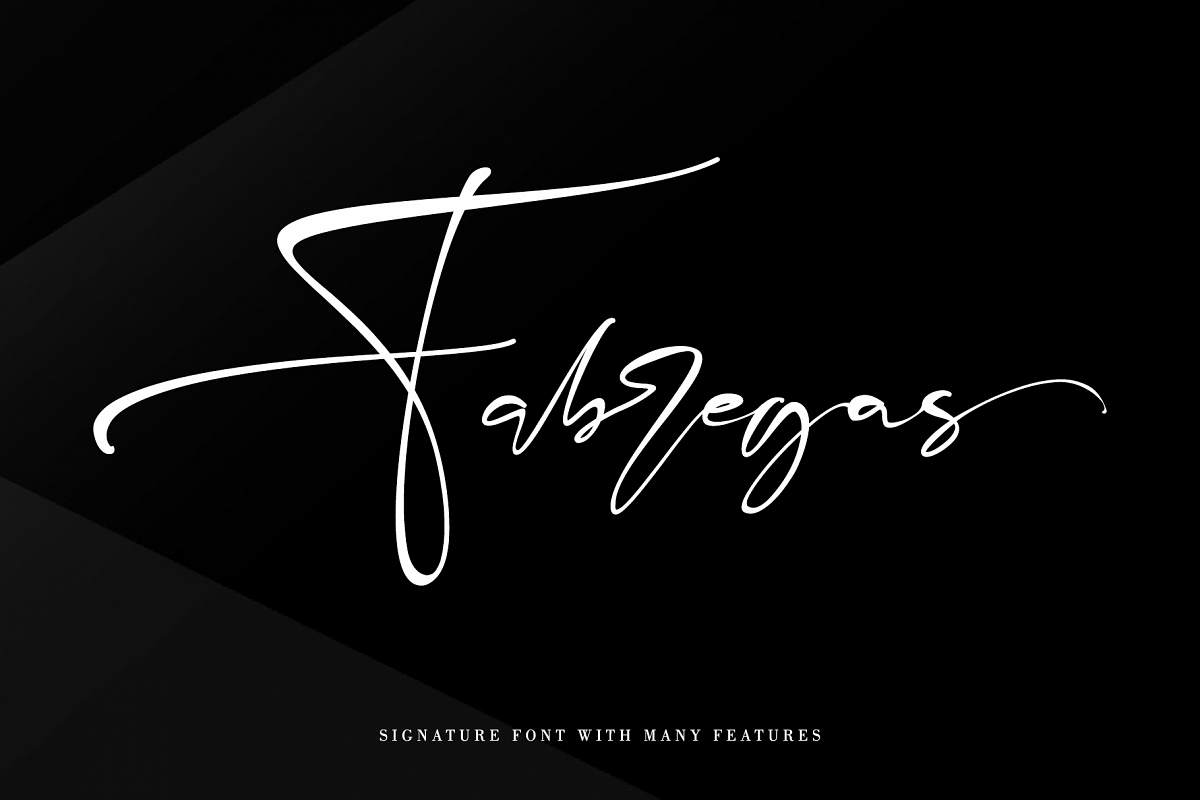
Fabregas is
a handwritten signature font with a natural & stylish flow. It will add an
authentic touch to any design idea.
2.    Style in
this font include: Regular, Italic
3.    Many faetures:
Alternates, Swash, 101 Ligatures